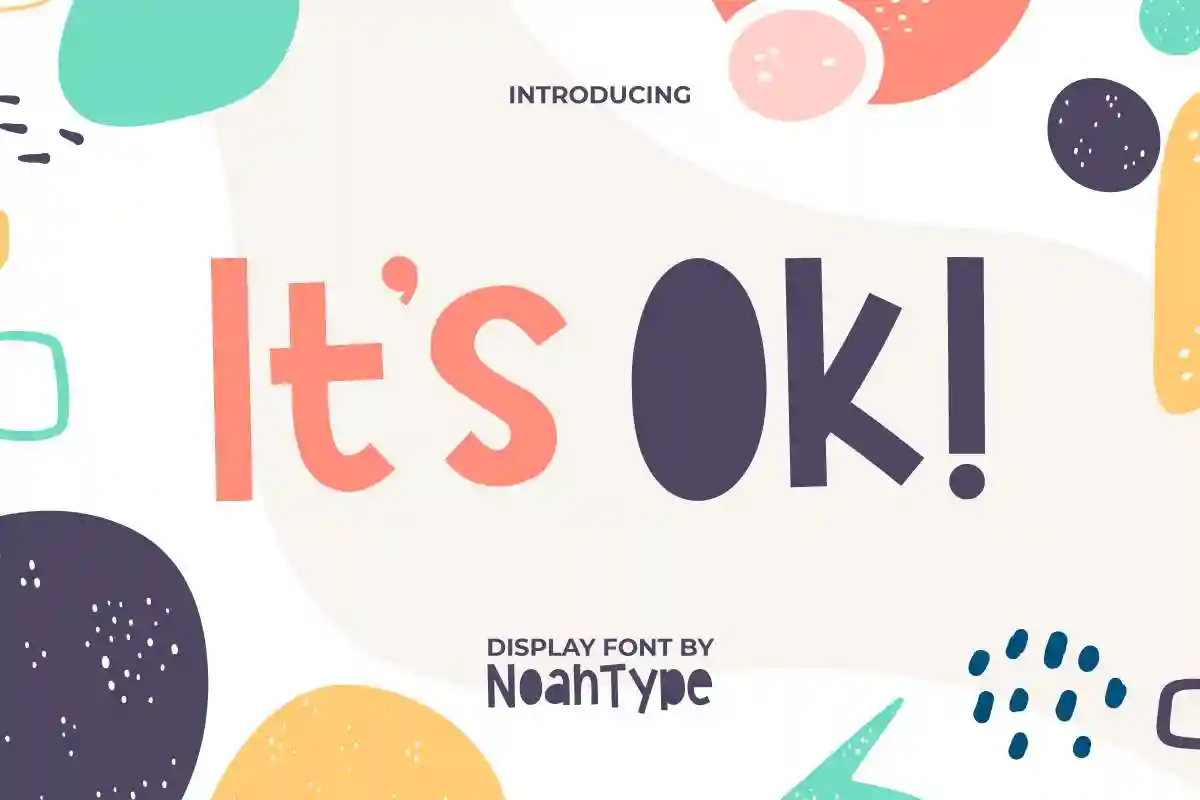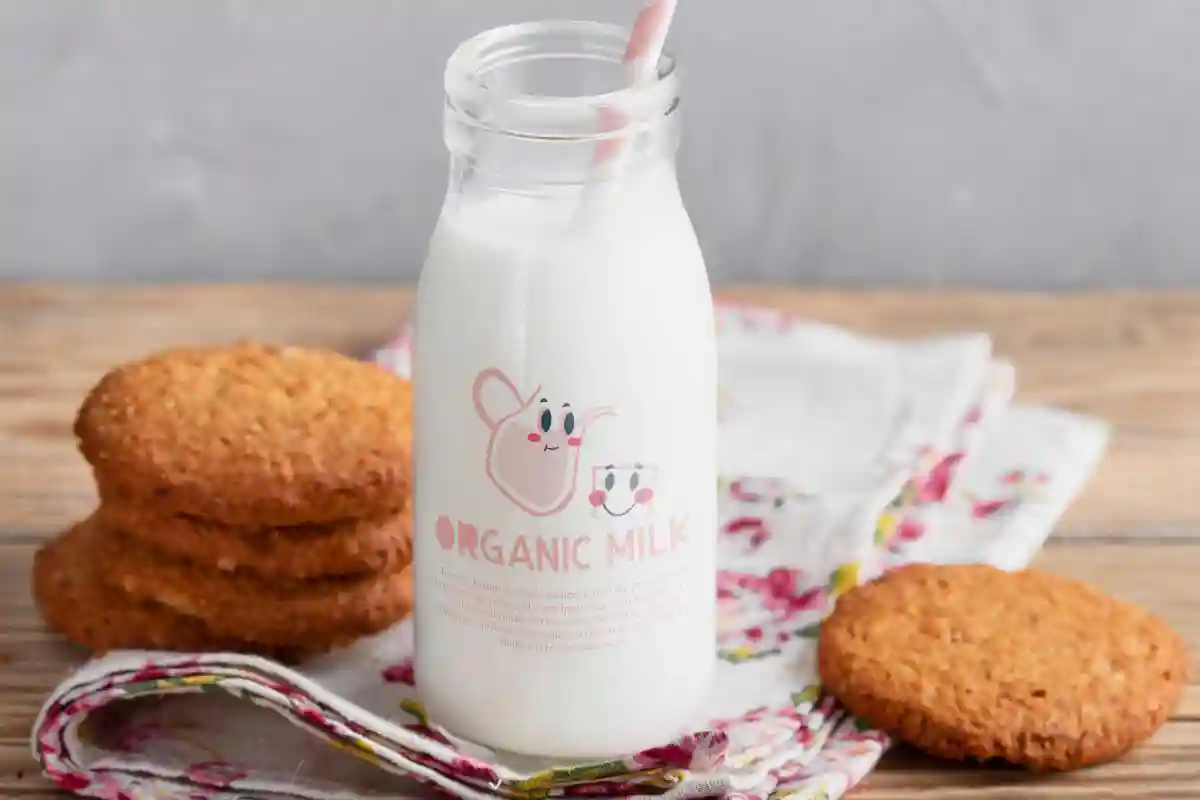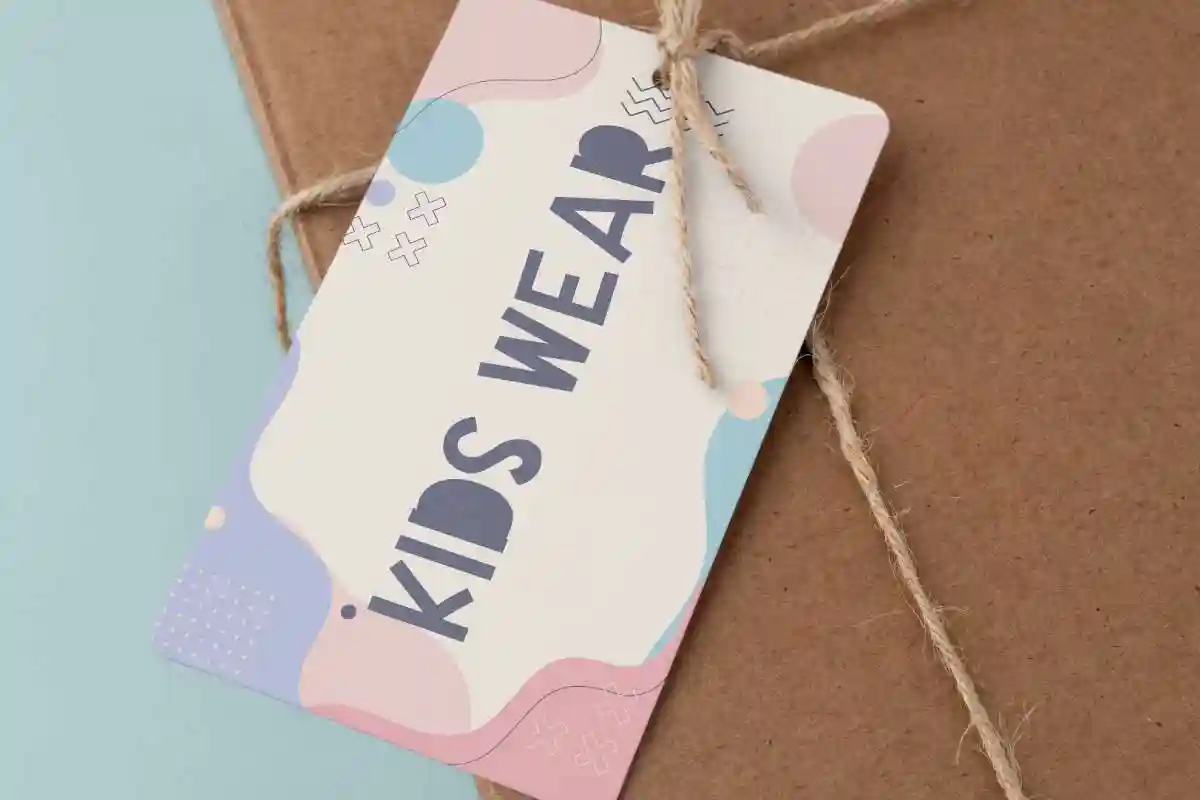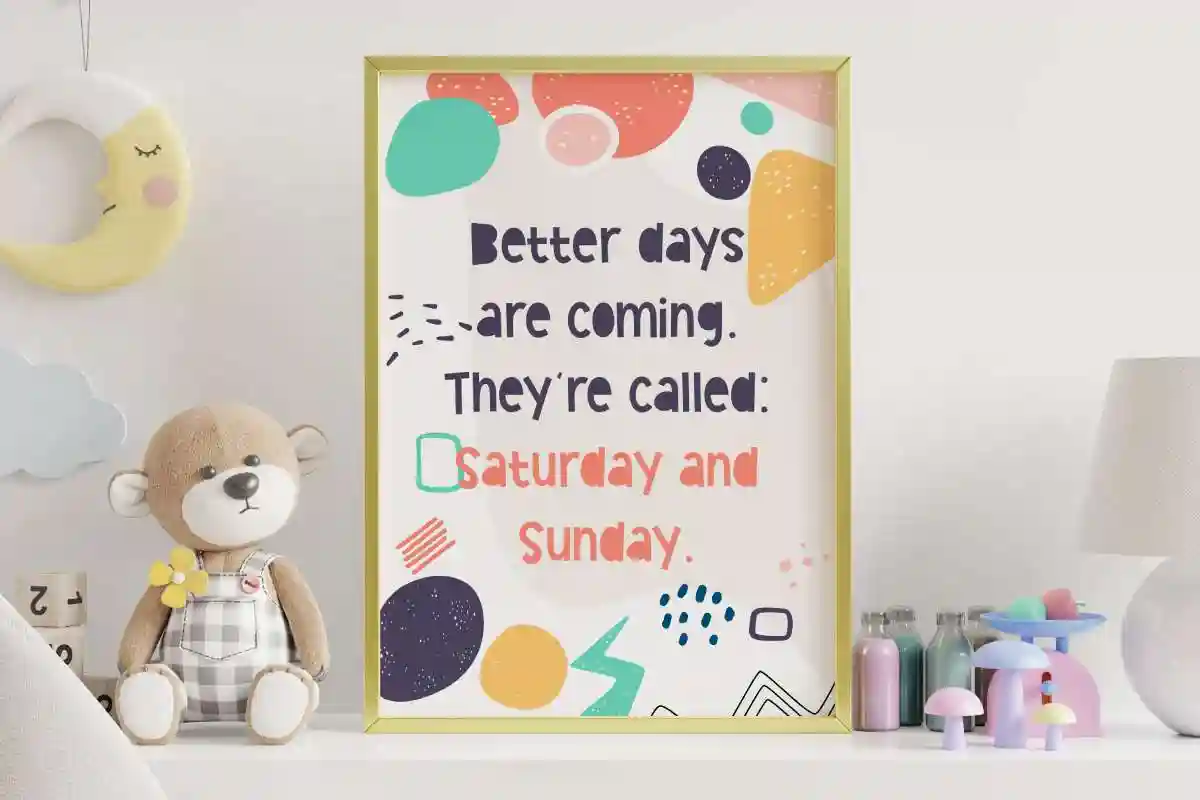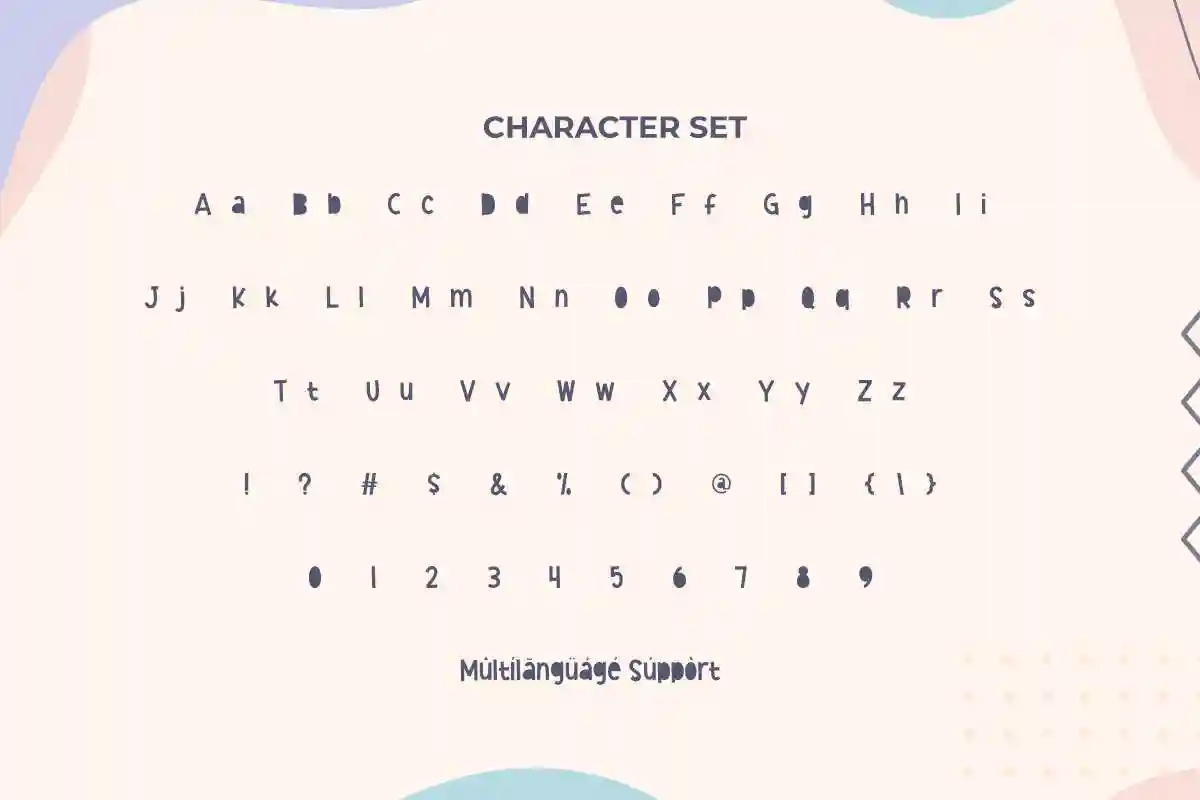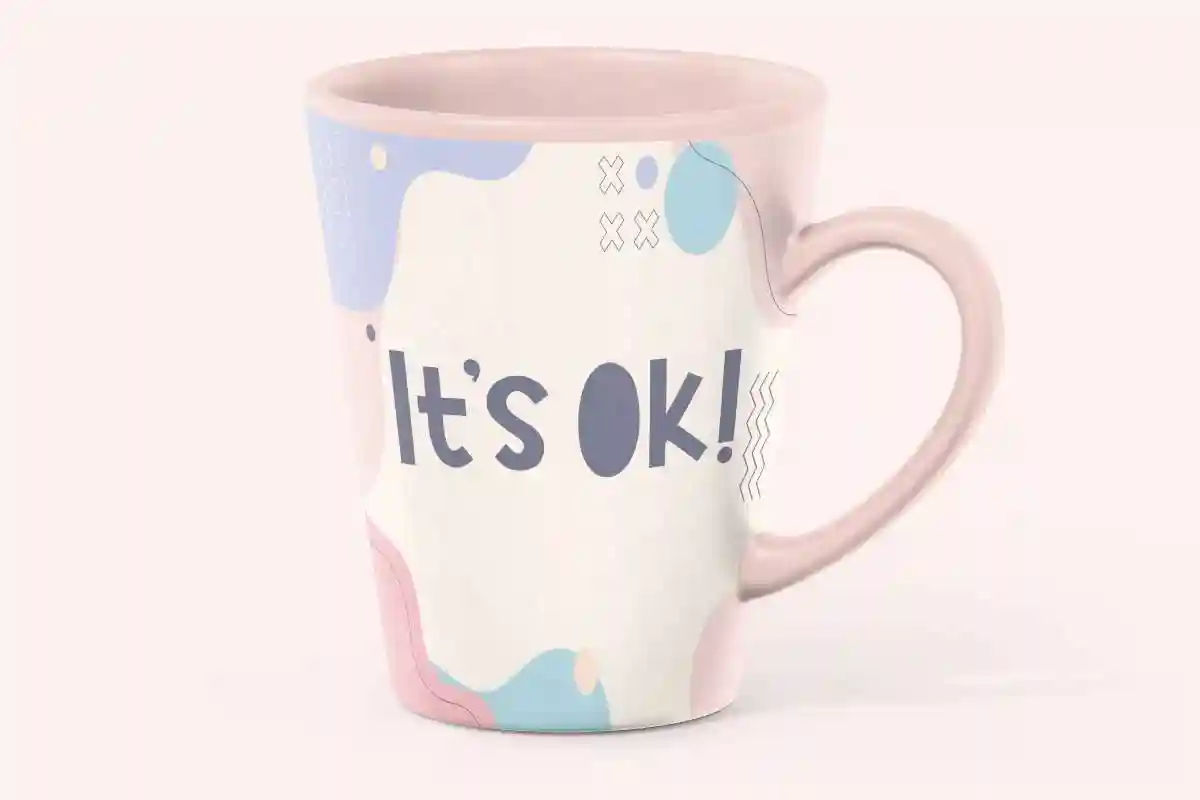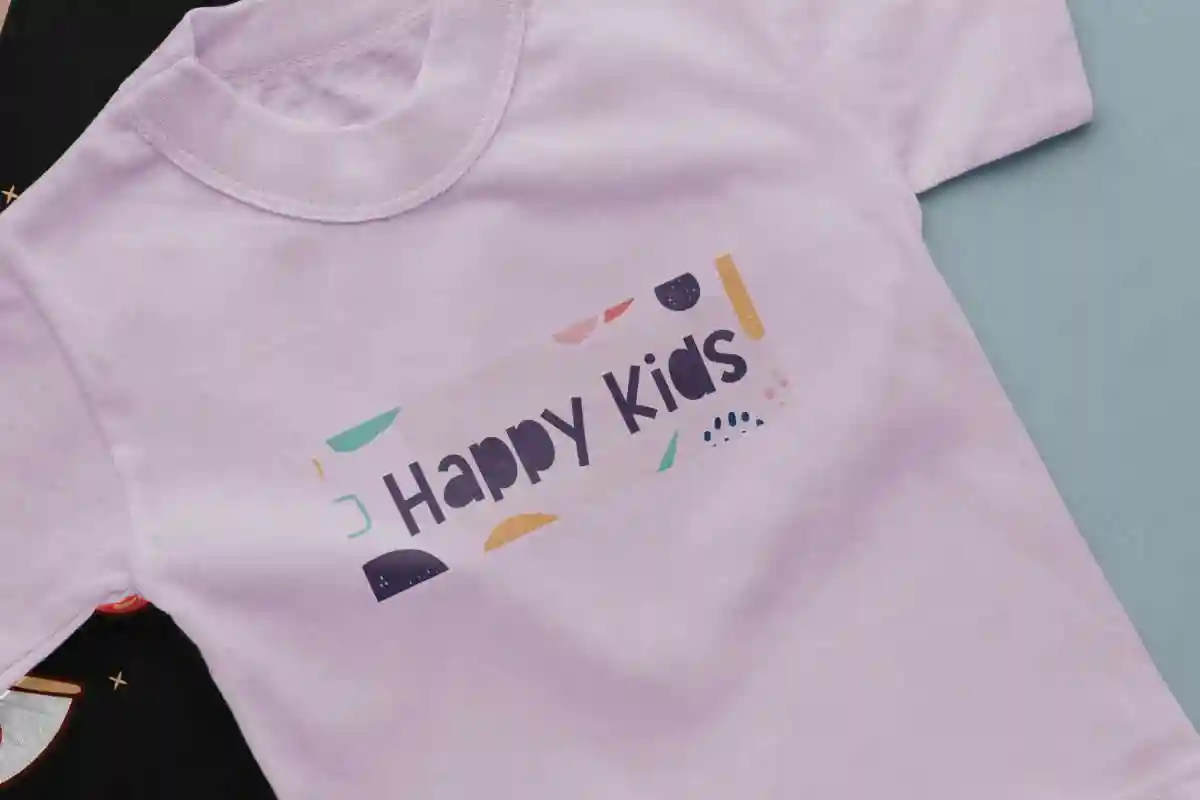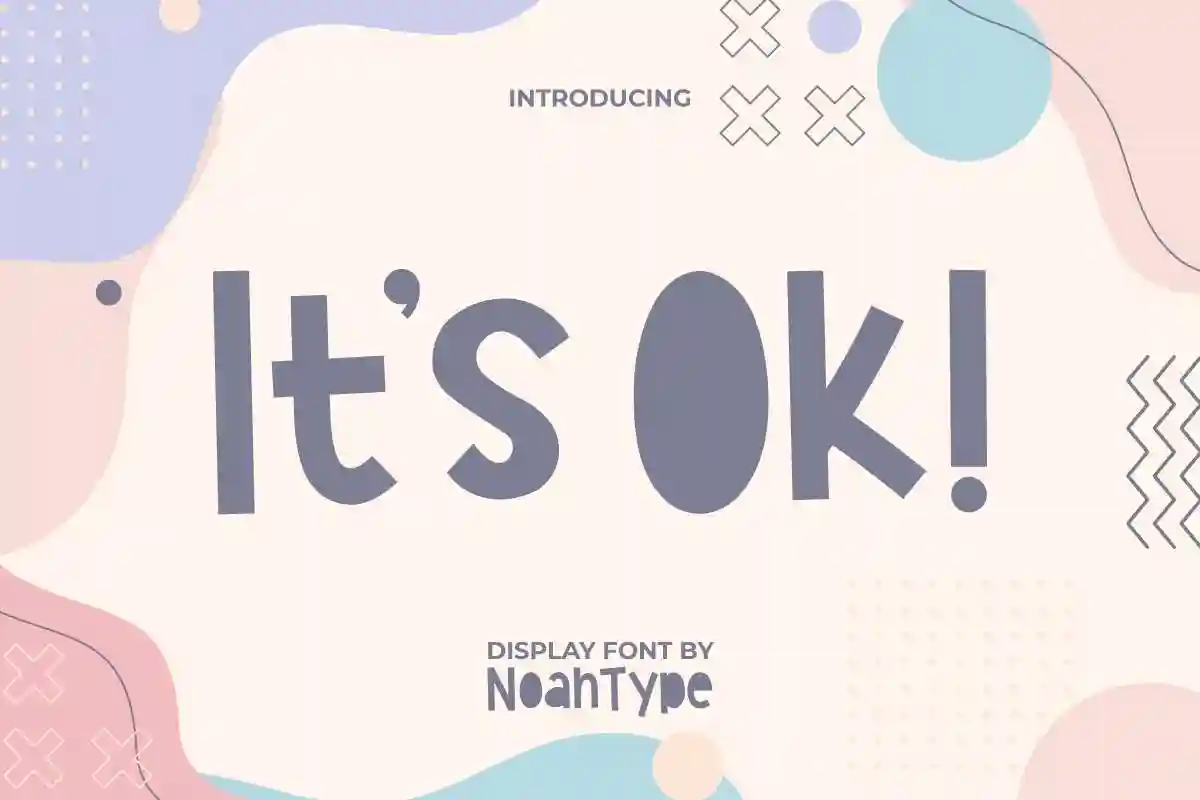
It’s Ok Font is a cute and playful display font with fun theme. This font doesn’t have lines that are too thick or thin and each rounded letter is filled with color to add a cute impression. It will be good for any designs, such as brand image, business card, cover, custom design, invitation, label, menu, poster, product packaging, quote, signage, stationery, web, and more!
It’s Ok Font includes full set of Uppercase and Lowercase Basic Characters, Numerals, Punctuation, and Symbol. The characters of this font will give your design tough looks, also a perfect choice for many industries, such as advertisement, cartoon, comic, event or festival, fashion, game, kids stuff, printing, publishing, etc.